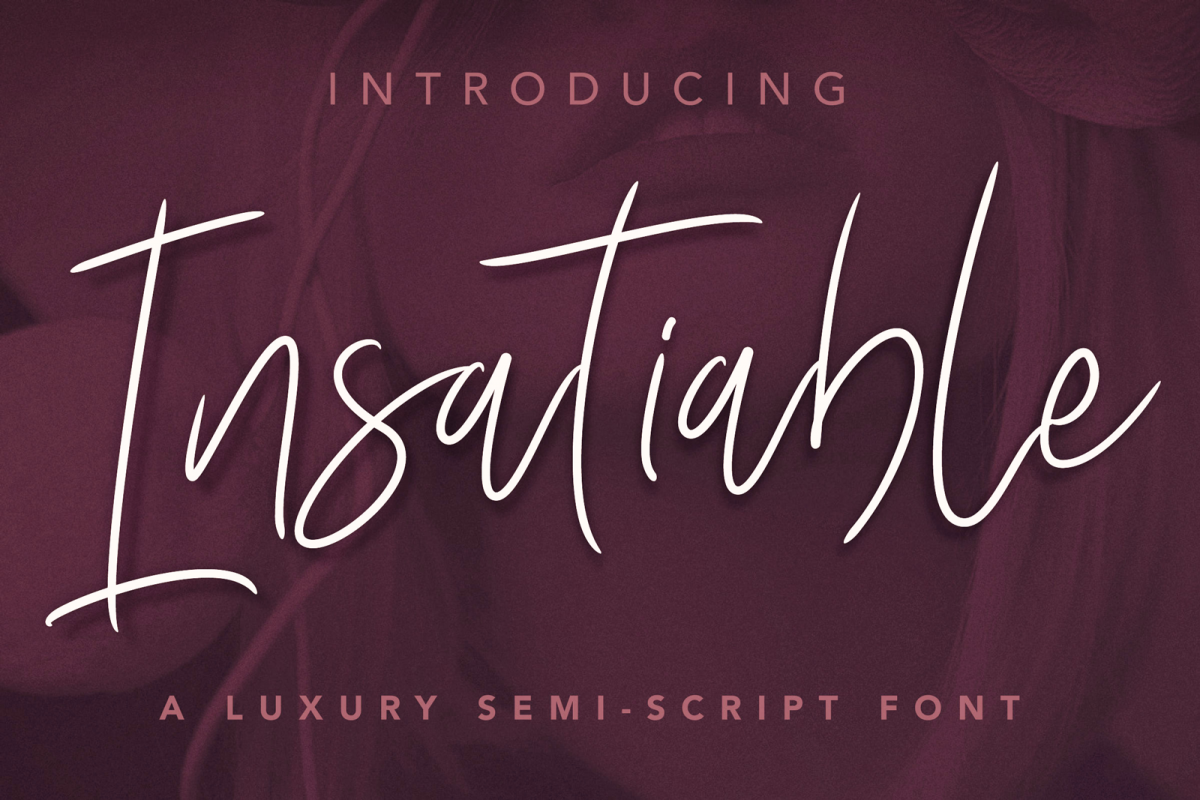
Insatiable Script Font
Introducing the new Insatiable Script Font - A fashionable and super-chilled new handwriting font script with some handmade stylish extras :)
Insatiable Script Font was created to look as close to a natural handwritten script as possible.
• 12 Flourishes
• Multilingual Support is included for the following languages: Cornish, Danish, English, Estonian, Faroese, Filipino, Finnish, French, Friulian, Galician, German (Switzerland), Gusii, Icelandic, Indonesian, Irish, Italian, Kabuverdianu, Kalenjin, Kinyarwanda, Luo, Luxembourgish,Norwegian BokmÃ¥l, Norwegian Nynorsk, Portuguese, Romansh, Scottish Gaelic, Spanish, Swedish, Swiss German.